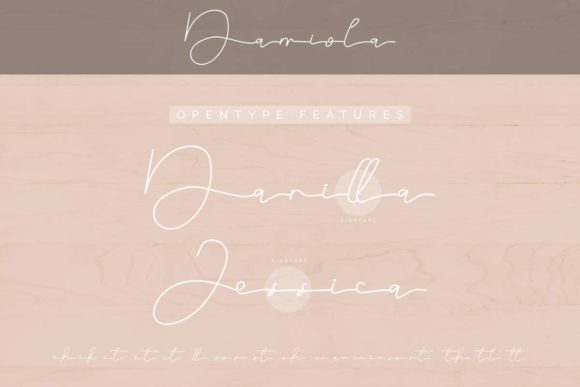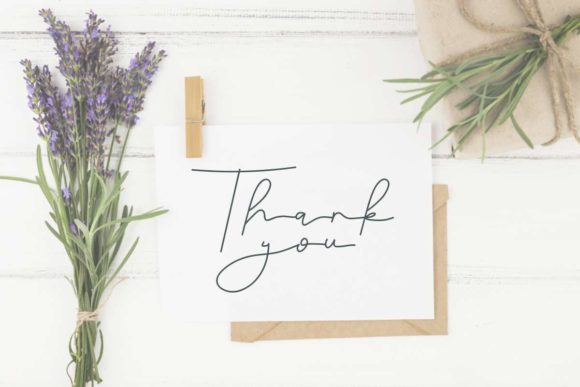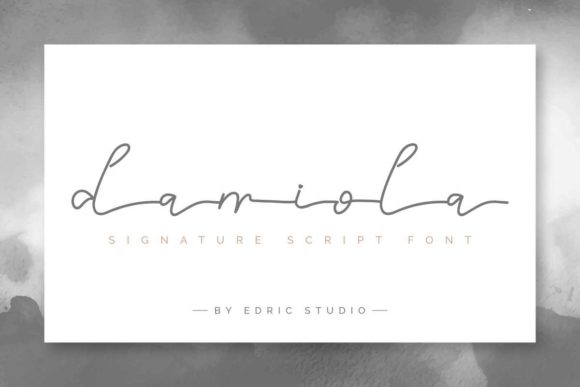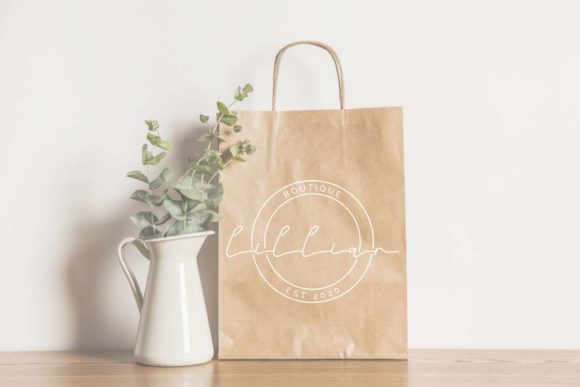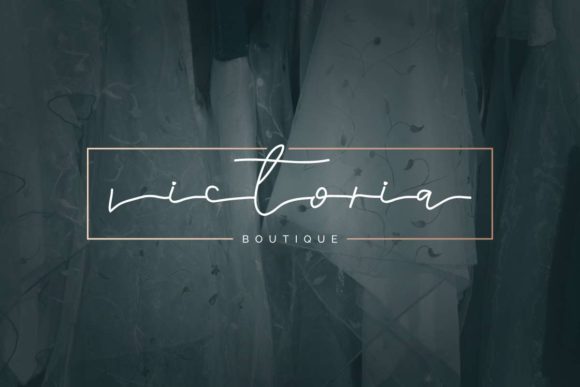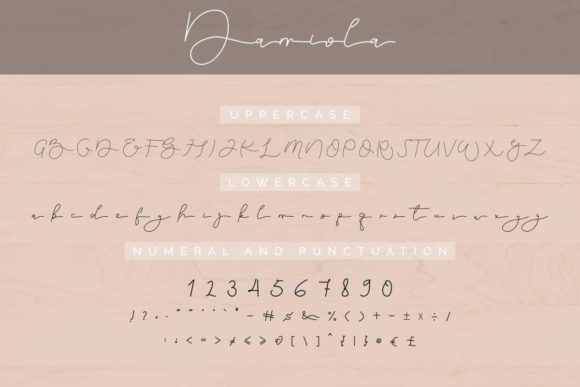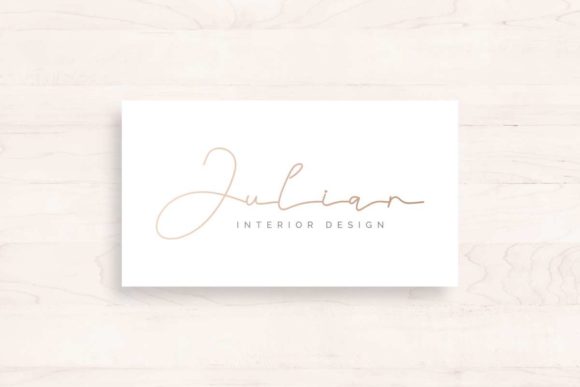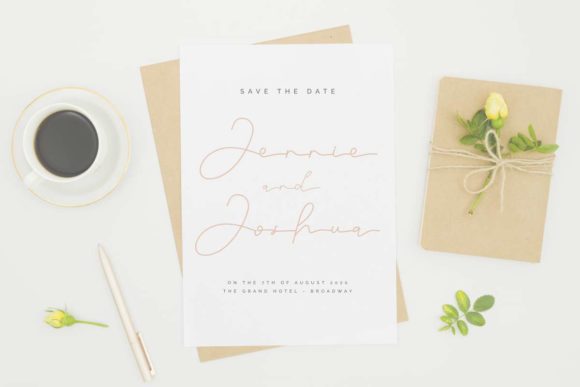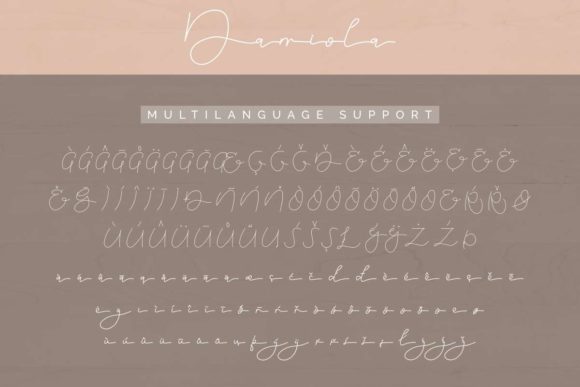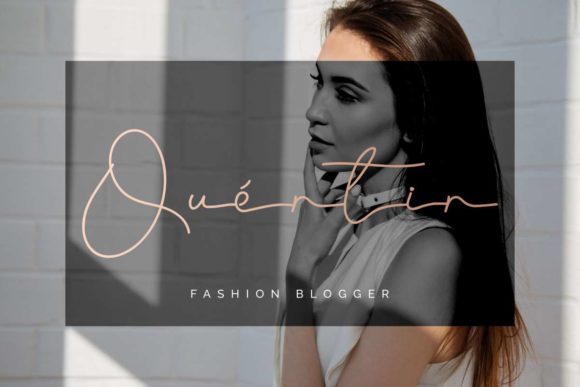
Damiola Font
About Damiola Font
Damiola simplifies elegance into one truly outstanding handwritten font. This font will look outstanding in any context, whether it’s being used on busy backgrounds or as a standalone headline!